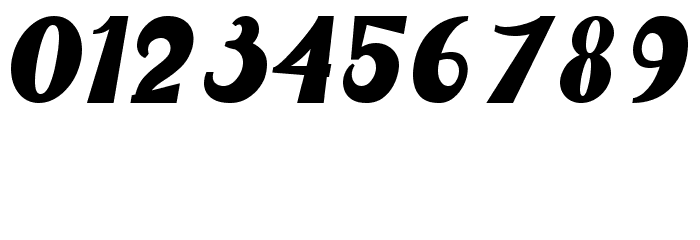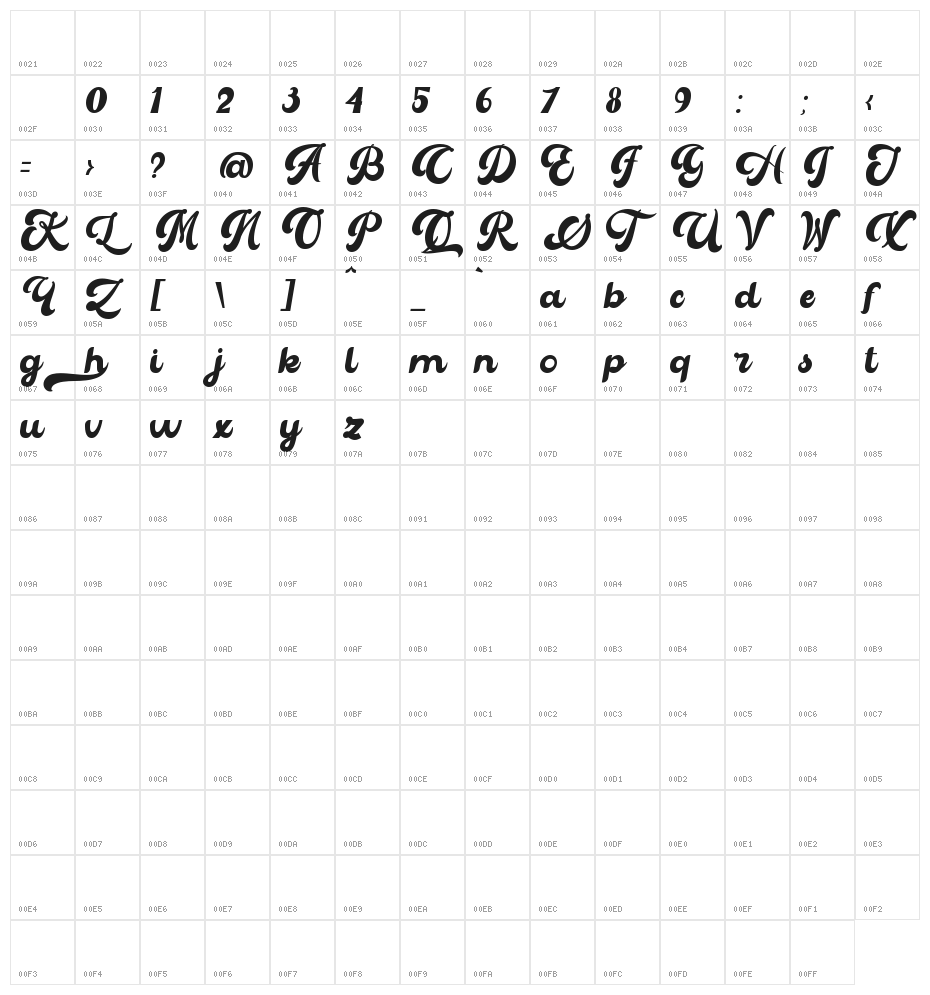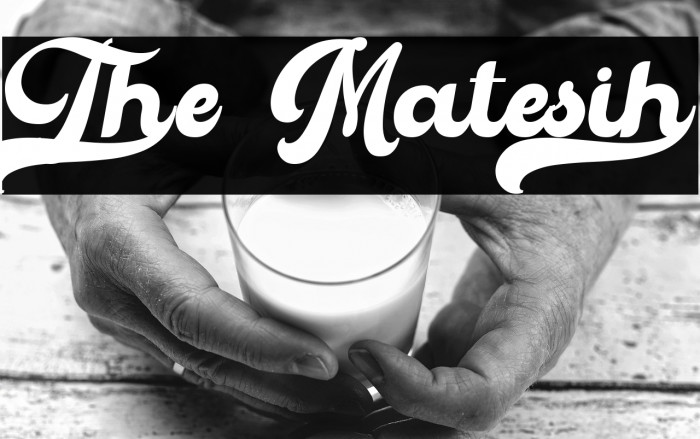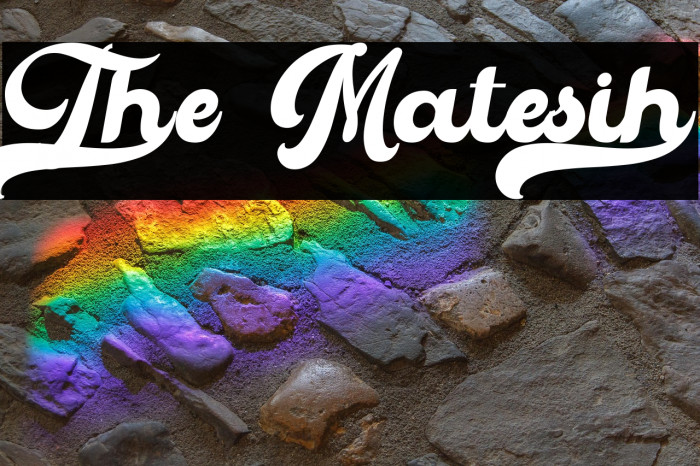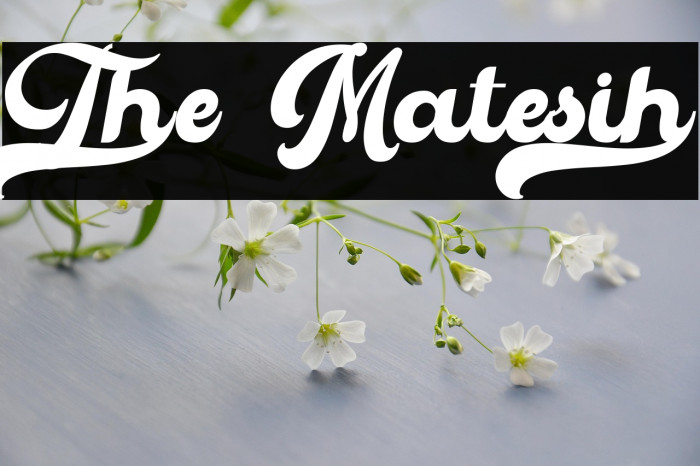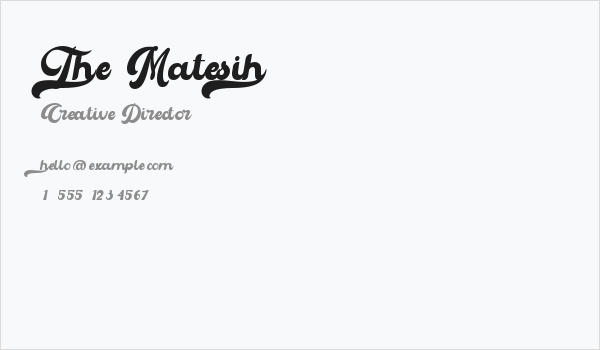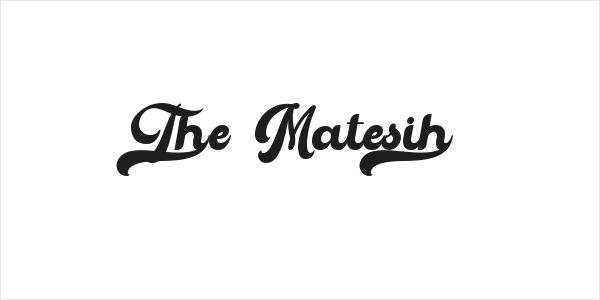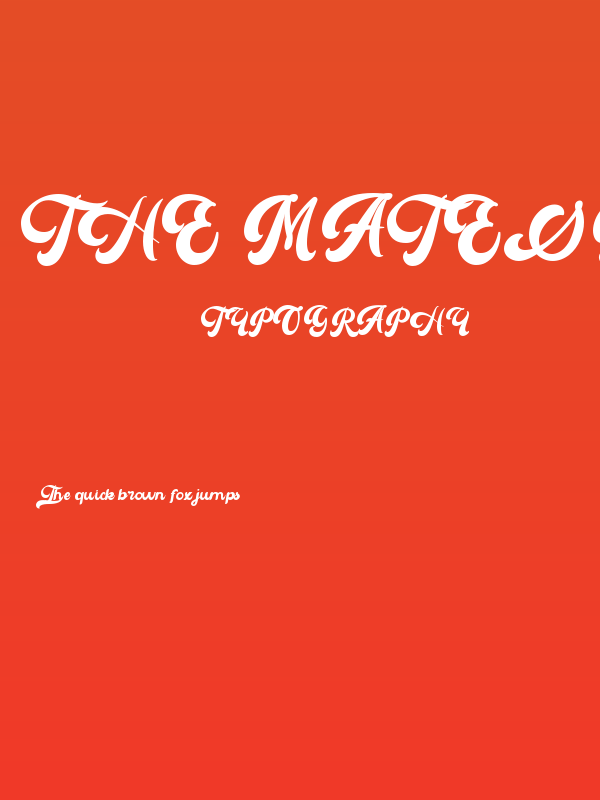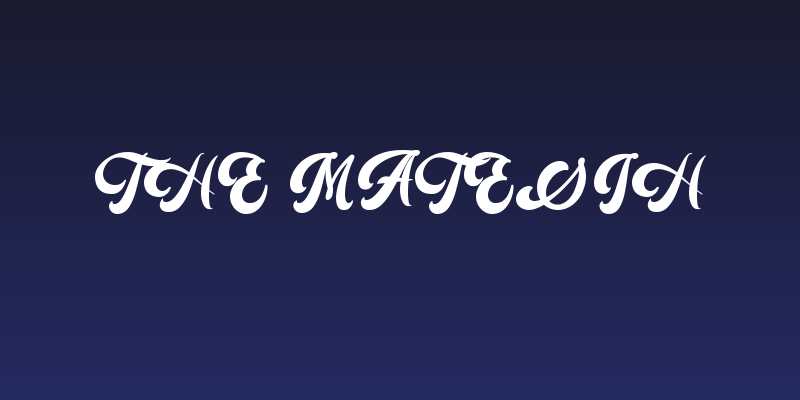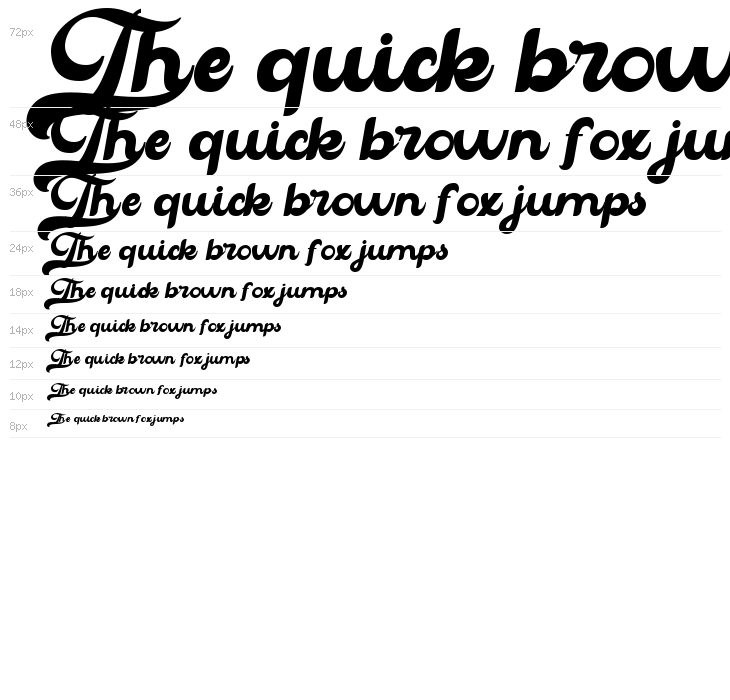
The Matesih Font
The Matesih Description
This font features a bold and flowing script style, characterized by its elegant and cursive letterforms. The uppercase letters exhibit a classic calligraphic flair, with sweeping curves and decorative flourishes that give it a sophisticated appearance. The lowercase letters maintain a consistent flow, with smooth connections between characters, enhancing its readability while preserving its artistic charm. The numerals are bold and slightly italicized, complementing the overall style. Special characters are designed with the same attention to detail, ensuring a cohesive look across all glyphs.
| Proposed Projects | Ideal for wedding invitations, branding, logo design, and elegant stationery. |